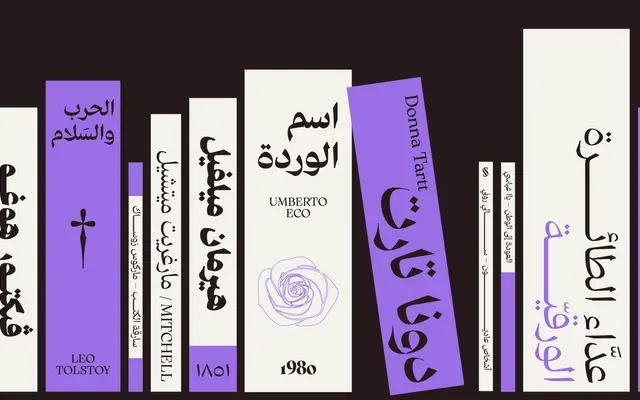
Arsenica Arabic
A Naskh-rooted Arabic type system by Francesco Canovaro and Murad Alshawareb, designed to pair with the Latin Arsenica superfamily across brand and editorial work.
Built on a traditional Naskh skeleton but executed with sharp, triangular joins and high contrast drawn from a translation model rather than classical calligraphy, the family splits into two subfamilies: Arsenica Arabic Antiqua, which rounds terminals for warmth in editorial and branding contexts, and the main family, which pushes contrast to its sharpest for poster and logo use. Seven weights run across both subfamilies, with a variable font included in the full package covering weight and optical size axes. The design was developed with guidance from Nadine Chahine and completes a multilingual system alongside the Latin, Greek and Cyrillic Arsenica families.
A Naskh-rooted Arabic typeface with Old Style contrast logic, drawing on translation-model stroke contrast with sharp, acute joins rather than the soft terminals of classical digitised Naskh revivals. The Latin component follows the same expansion-based drawing philosophy as the broader Arsenica superfamily.